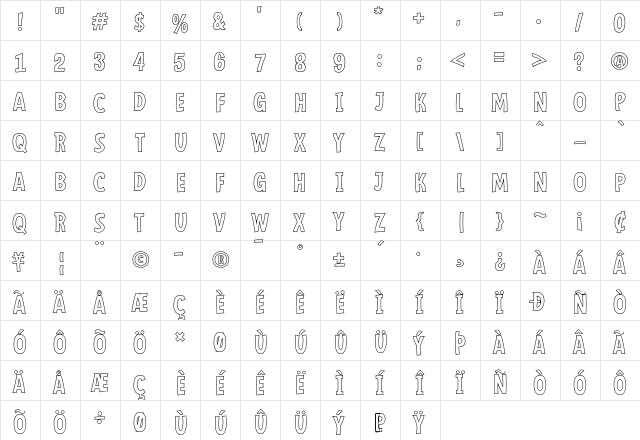
Mindflyers Outline Regular
Design Context for Mindflyers Outline Typeface
Mindflyers Outline is built around its visual character rather than neutral utility — its distinctive forms are designed to make an impression at display sizes.
Font Pairing: Pair with a clean neutral sans-serif for body copy to let Mindflyers Outline's character lead without overwhelming the composition.
Pro Tip: Treat Mindflyers Outline as the centrepiece of your typographic hierarchy. One strong heading set in a decorative face can carry an entire layout.